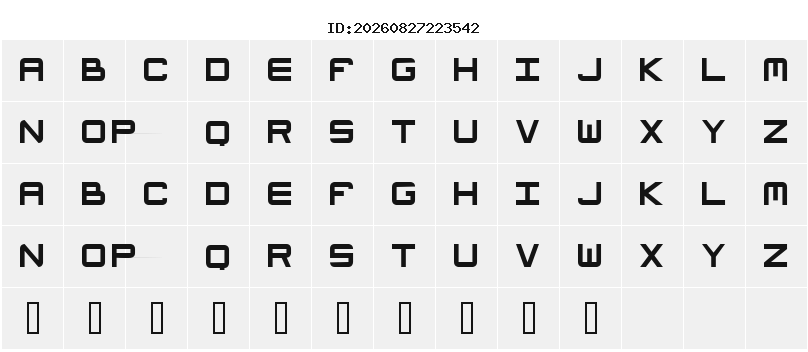
• Font Name: Tycho
Tycho.ttf is a modern, elegant sans-serif font designed for ultimate readability and visual harmony. Perfect for branding, headlines, web design, and print materials.